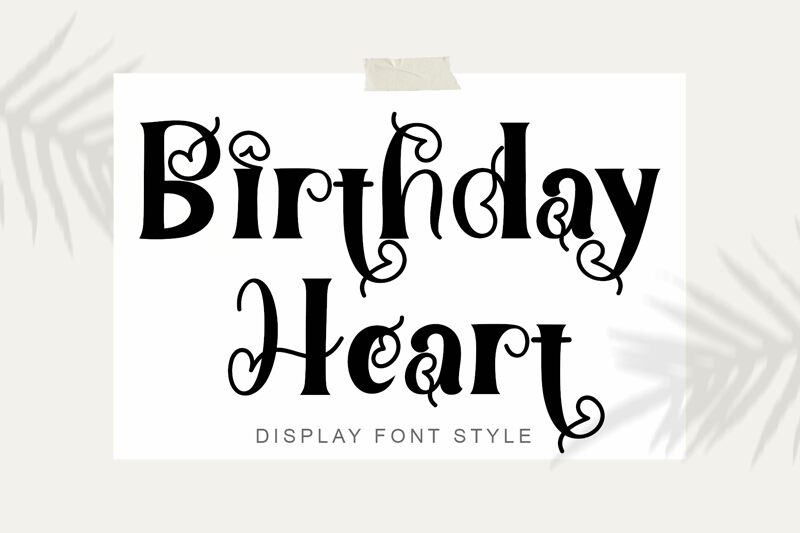
Birthday Heart font, designed by Yoga Letter, is a free font in holiday that effortlessly integrates fun and joy. Each letter seems to be taking time off and getting into the holiday spirit as well. This font needs no ornamentation simply for the fact that the letters themselves are sufficiently decorative to serve as the ornamentation. It happens to be a script font with long curvy tails on the capital letters which makes it so elegant.
A font that looks better in display sizes, Birthday Heart letterform lightens up logotype, poster titles, postcards, social media, book designs, wedding invitations, and items related to brands. When used in smaller sizes, this font loses its decorative details. Whereas it stands out in the other display uses. Thus, use it wisely in a project to take maximum advantage of its beauty.